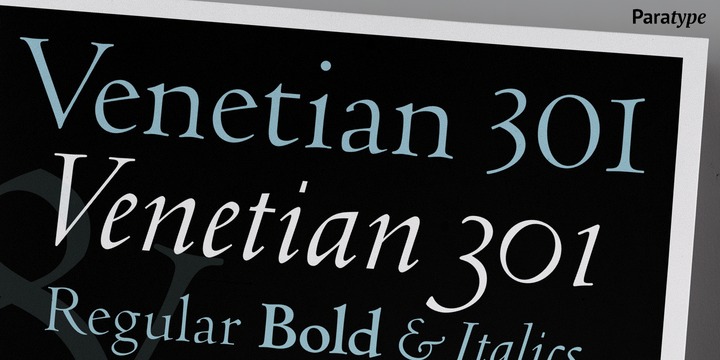
Venetian 301 Font
Venetian 301 Font is perfect for luxury hotel branding, prestigious law firm communications, classical music venue signage, fine art gallery materials, heritage brand logos, academic institution publications, traditional banking presentations, exclusive member club graphics, sophisticated restaurant menus, and elegant corporate annual reports. This distinguished typeface excels in applications where classical elegance, institutional authority, and timeless sophistication are fundamental brand requirements.
What makes Venetian 301 Font exciting is its masterful revival of Renaissance typography traditions with contemporary refinements that create an atmosphere of established prestige and cultural sophistication. The font features beautifully proportioned letterforms with classical serif details and humanist characteristics that reflect centuries of typographic evolution. Its dignified character immediately conveys intellectual authority and institutional credibility, making it perfect for organizations that serve discerning clientele who appreciate traditional excellence and scholarly distinction.
The Venetian 301 Font family typically includes multiple weights from Regular to Bold, with corresponding italic variations that enhance its formal versatility and academic appeal. Many versions feature small caps, old-style numerals, and extensive ligatures that reflect traditional European typographic craftsmanship. Some collections include ornamental elements, decorative initials, and scholarly symbols that provide comprehensive solutions for academic publishing and institutional communications requiring the highest standards of typographic excellence.
Whether you're developing brand identities for prestigious institutions, creating publications that demand scholarly authority, or designing materials that require absolute sophistication and cultural credibility, Venetian 301 Font Free Download delivers the classical distinction that established organizations demand. Its authoritative presence makes it ideal for institutions that have earned respect through decades of excellence and intellectual achievement. The font's ability to convey both tradition and contemporary relevance makes it particularly valuable for universities, cultural institutions, and professional service firms seeking to maintain their distinguished reputation while attracting new generations of clients who value authentic expertise and institutional integrity.